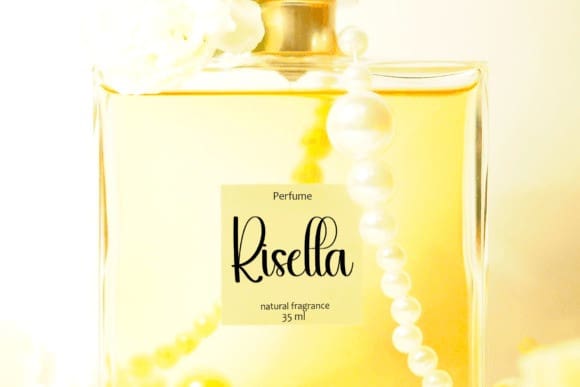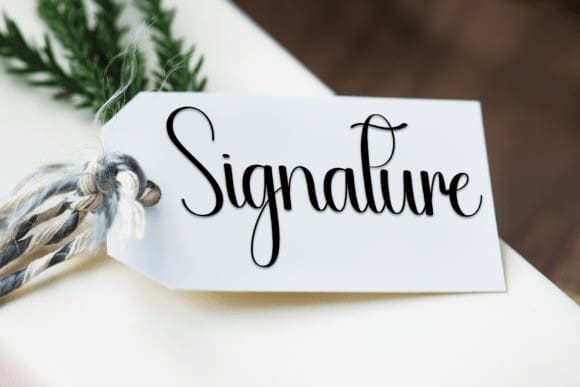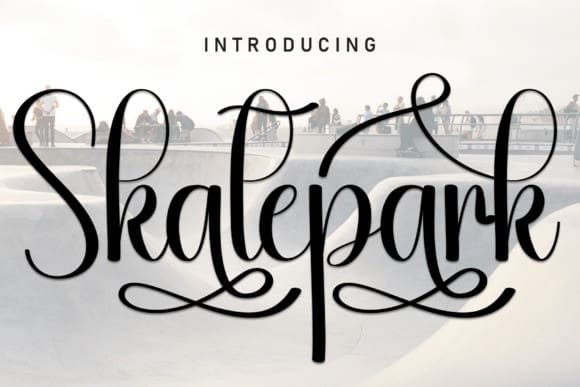
Skatepark Script Font
Skatepark Script Font, this is a sweet and friendly handwritten display font. Cute and fun, this font is ideal for writing wedding invitations, cards, or any other design that might need a fun touch!